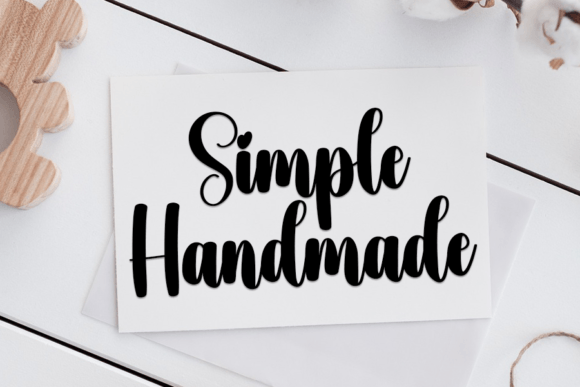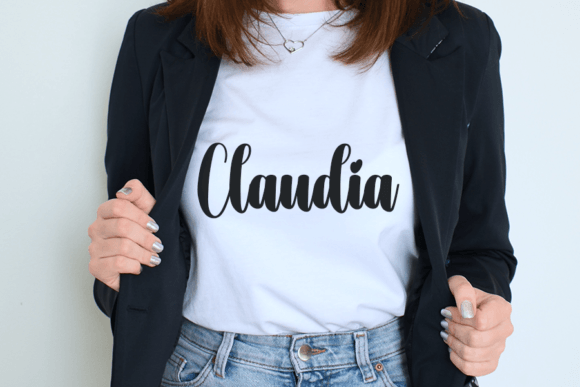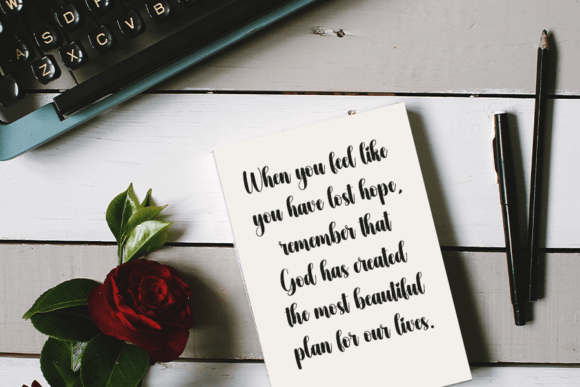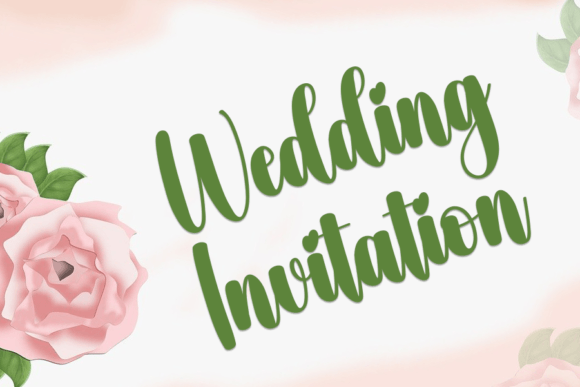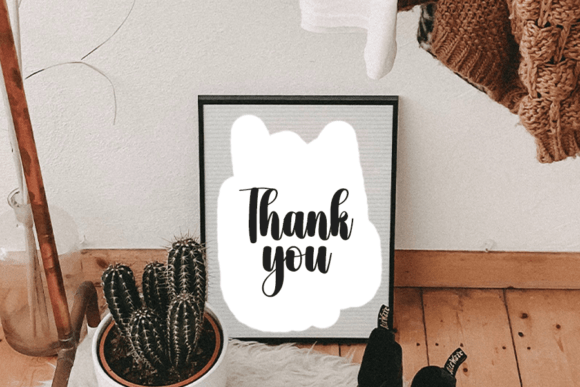
The Birth of a Beautiful Font: A Designer’s Delight
An Honest Review of Birthday Font
- ✨ Delicate and elegant handwritten style that’s perfect for creating a sophisticated look
- ✅ Highly versatile and can be used for a wide range of design projects, from invitations to food product labels
- 💫 Unique character set that adds a touch of personality to any text
- 🎉 Excellent for creating titles, headings, and emphasis text
While the Birthday Font is an excellent choice for many design projects, there are a few things to keep in mind:
- 🤔 Limited availability of stylistic alternates, which may limit its use in certain design contexts
- ⚠️ Not ideal for body text or long paragraphs, as its delicate nature may make it harder to read
The Story Behind Birthday Font
The Birthday Font was designed by a talented typographer who wanted to create a font that captured the joy and celebration of birthdays. Inspired by traditional handwritten scripts and modern digital fonts, the designer carefully crafted each character to ensure a unique and elegant look.
| Font Name | Birthday Font |
| Author | ade studio |
Q: What is the Birthday Font best suited for?
A: The Birthday Font is ideal for designing invitations, titles, headings, and emphasis text for various projects, including parties, events, and food products.
Q: Is the Birthday Font available in different styles or weights?
A: Currently, the Birthday Font is available in a single style, but its delicate and elegant design makes it versatile enough to be used in various contexts.